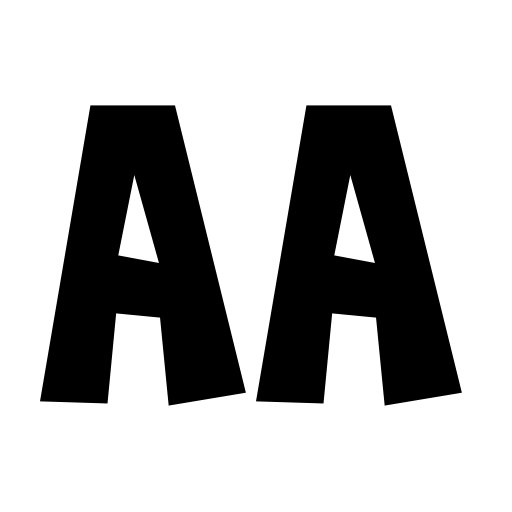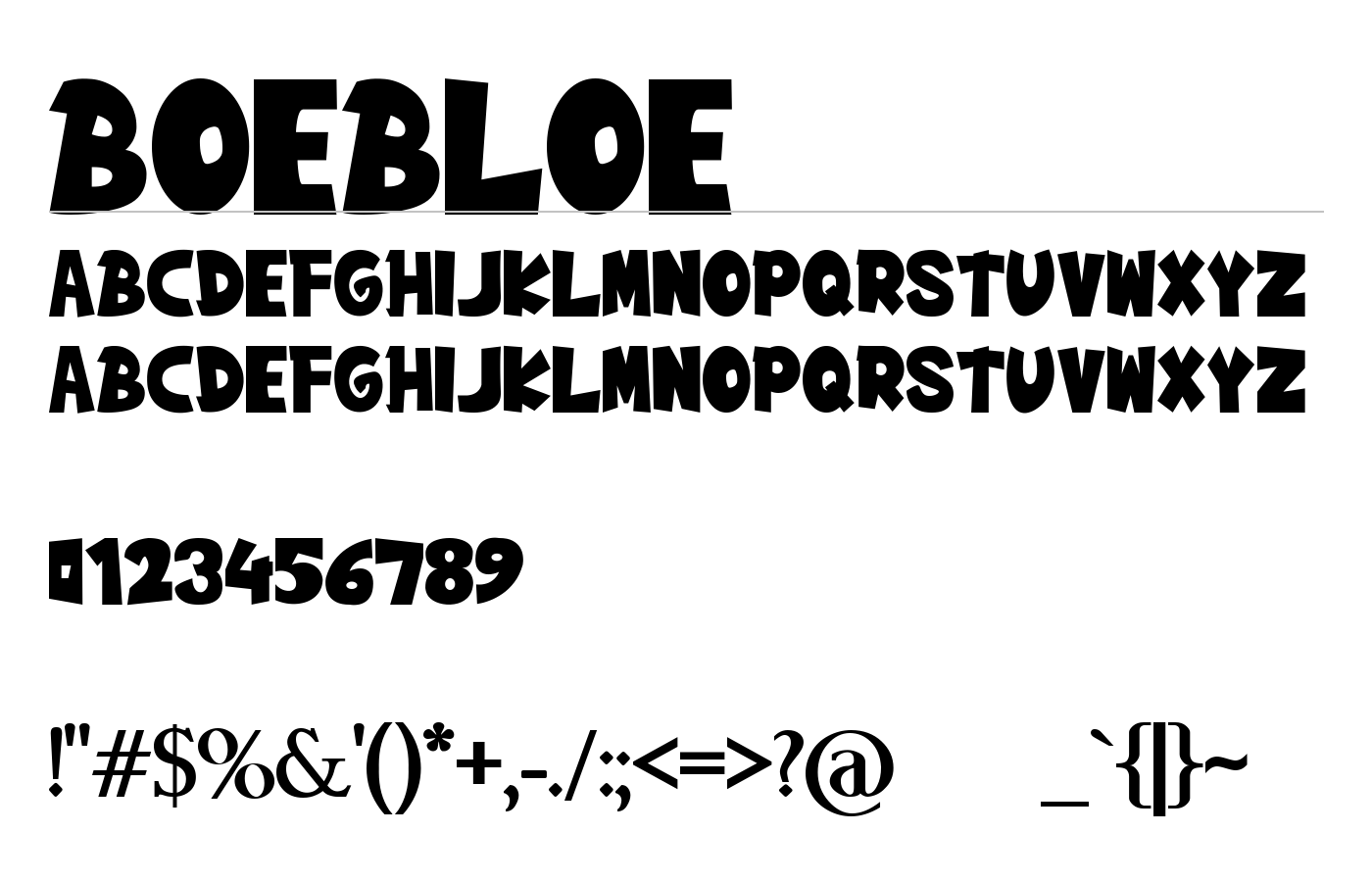
Boebloe is a bold, playful sans serif font with chunky, irregular letterforms that give it a fun and energetic personality. Its wide, chunky shapes and quirky angles make it perfect for eye-catching headlines, children's designs, and casual branding where a lively, informal vibe is desired. This font works beautifully in creative projects that need a touch of whimsy and bold presence.
Boebloe Font
About Boebloe Font